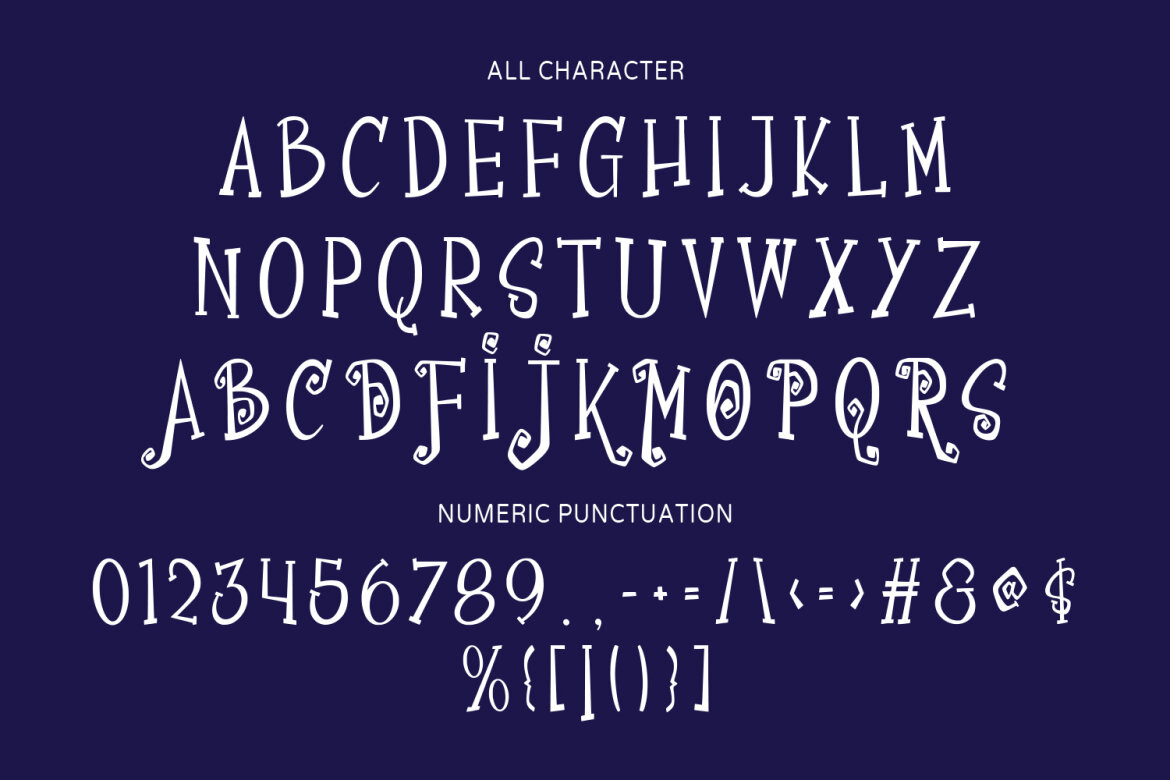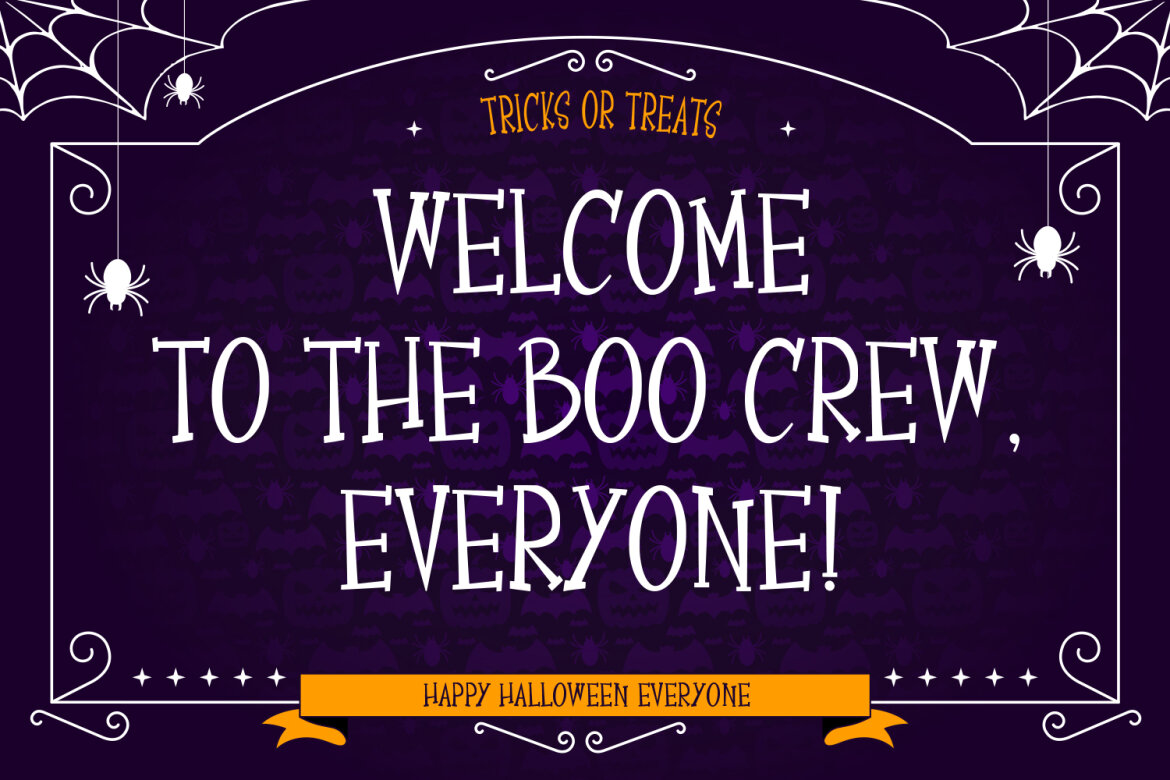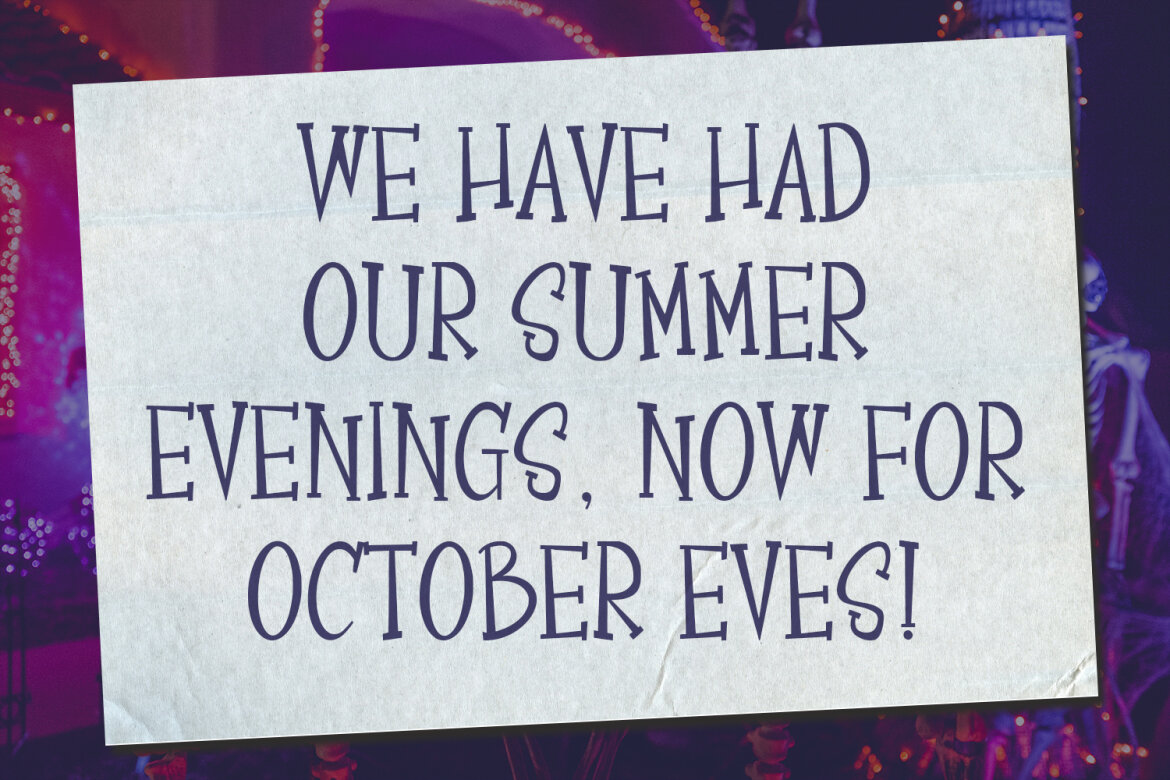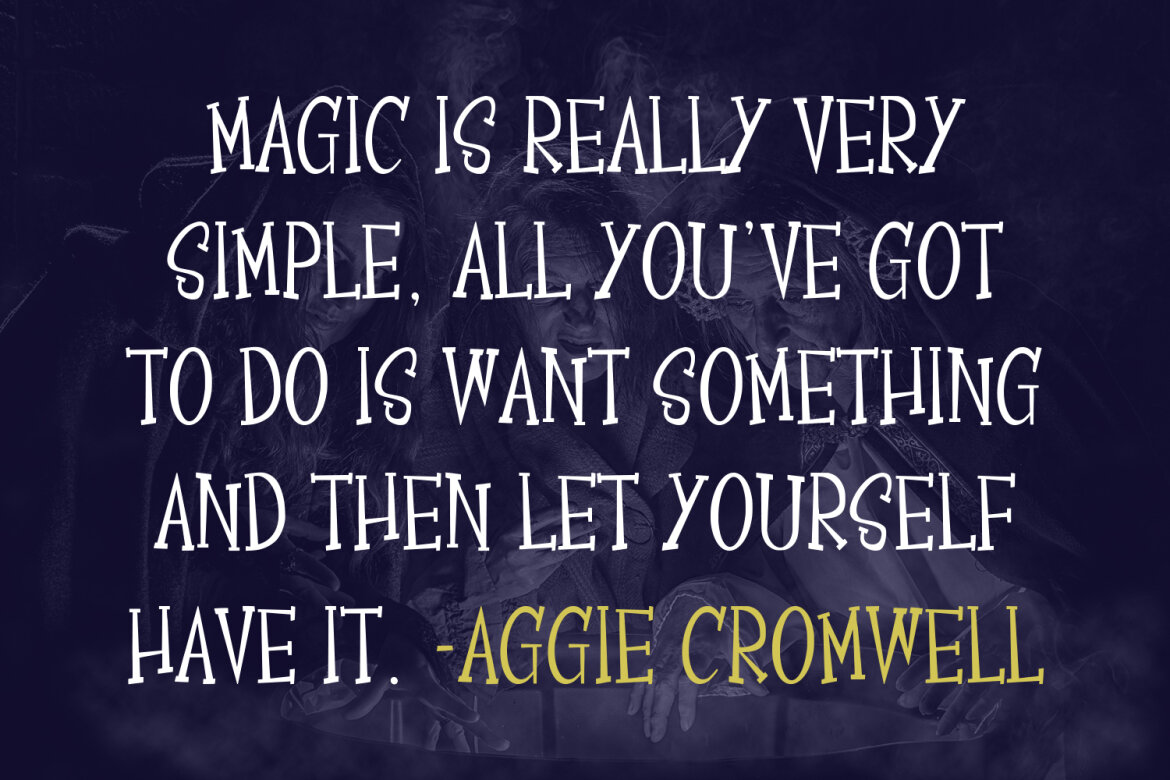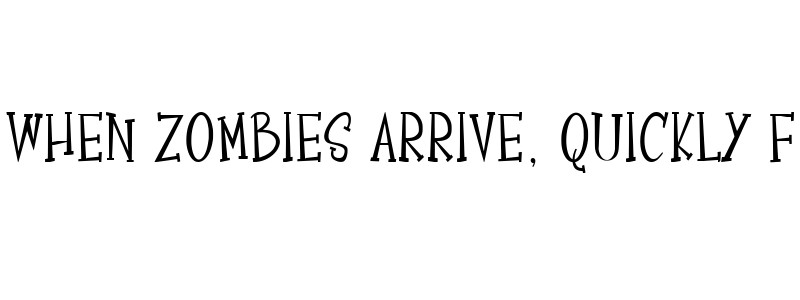
Magicullos Halloween FREE Font
Magicullos Regular
Magicullos halloween display font decorative, bold stroke, fun character with a bit of alternates. To give you an extra creative work. Magicullos halloween font decorative support multilingual more than 100+ language. This font is good for logo design, Social media, Movie Titles, Books Titles, a short text even a long text letter and good for your secondary text font with script or serif. Make a stunning work with Magicullos halloween display font.